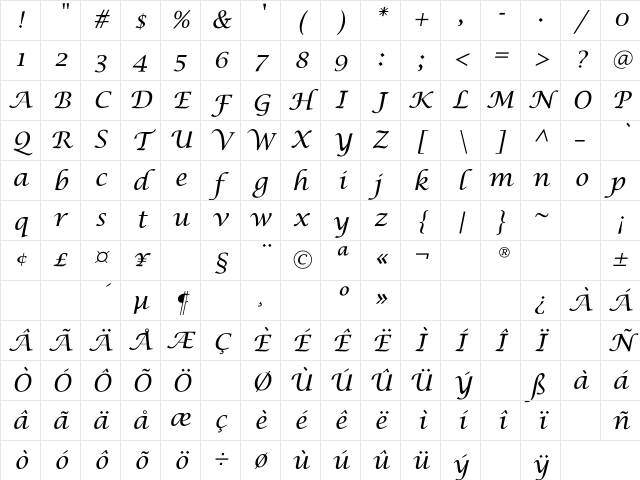
Lucerne Italic Regular
Design Context for Lucerne Italic
Lucerne Italic is a composed and adaptable typeface that performs quietly and consistently across a wide range of design contexts. The slanted form adds forward momentum and visual energy.